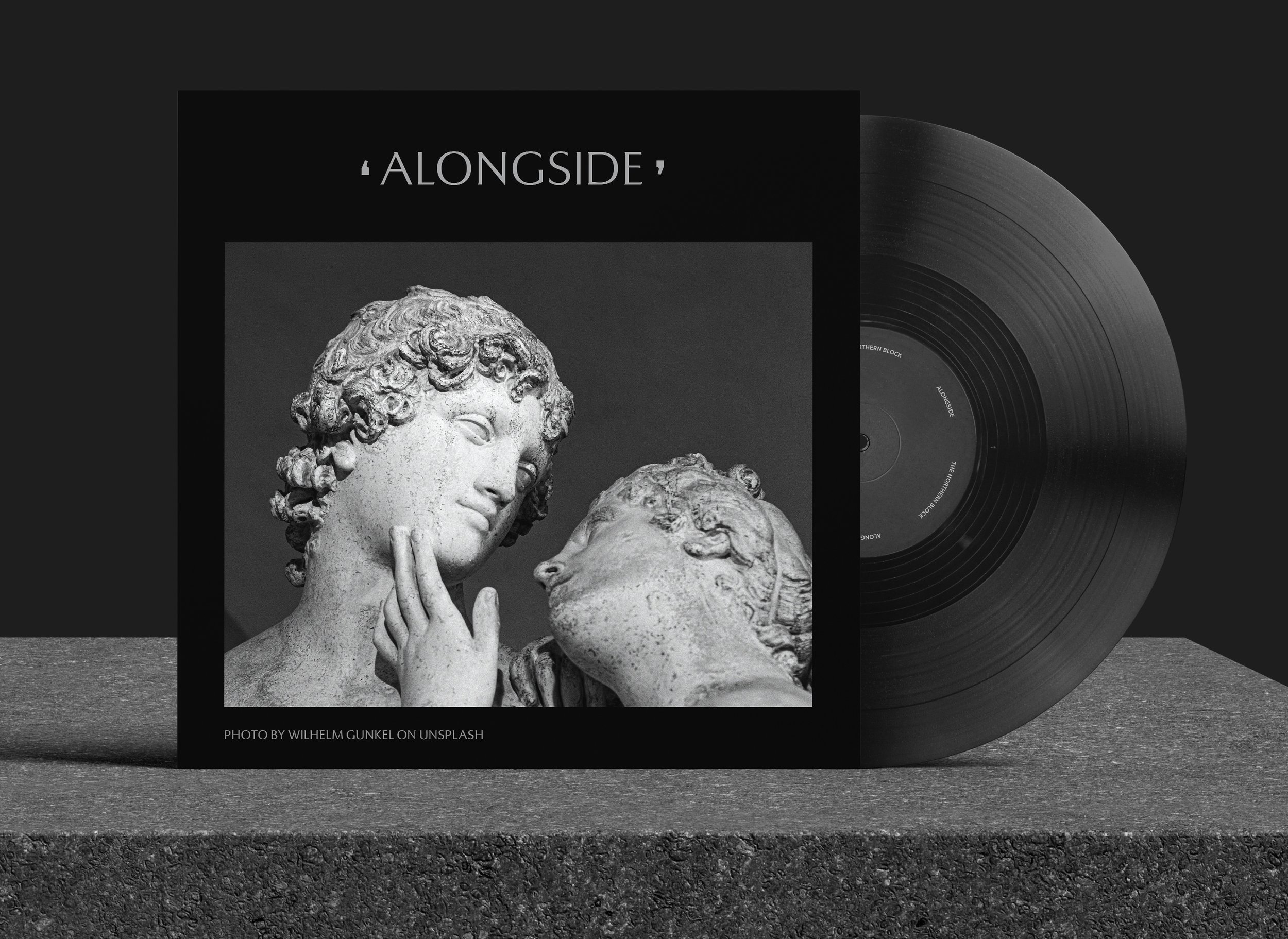
A re-imagined inscribed serif typeface based on Basilea, initially made by the designer Markus Low in 1965. The design pays respect to the classical romanesque forms without being overwhelmed by history and steers toward a contemporary aesthetic. Markus Low has a great stroke contrast, producing graceful, fluid lines. The outcome is a modern display serif with subtle chisel-like details best suited for a dramatic impact.
Version 2.0 of the font includes over 780 characters per style and eight weights with matching obliques. Opentype features consist of ten number variations inferiors, superiors, fractions, tabular, lining, case-sensitive, and oldstyle. Also included are 14 alternative characters, small caps, and language support covering Western, Southern, and Central Europe.